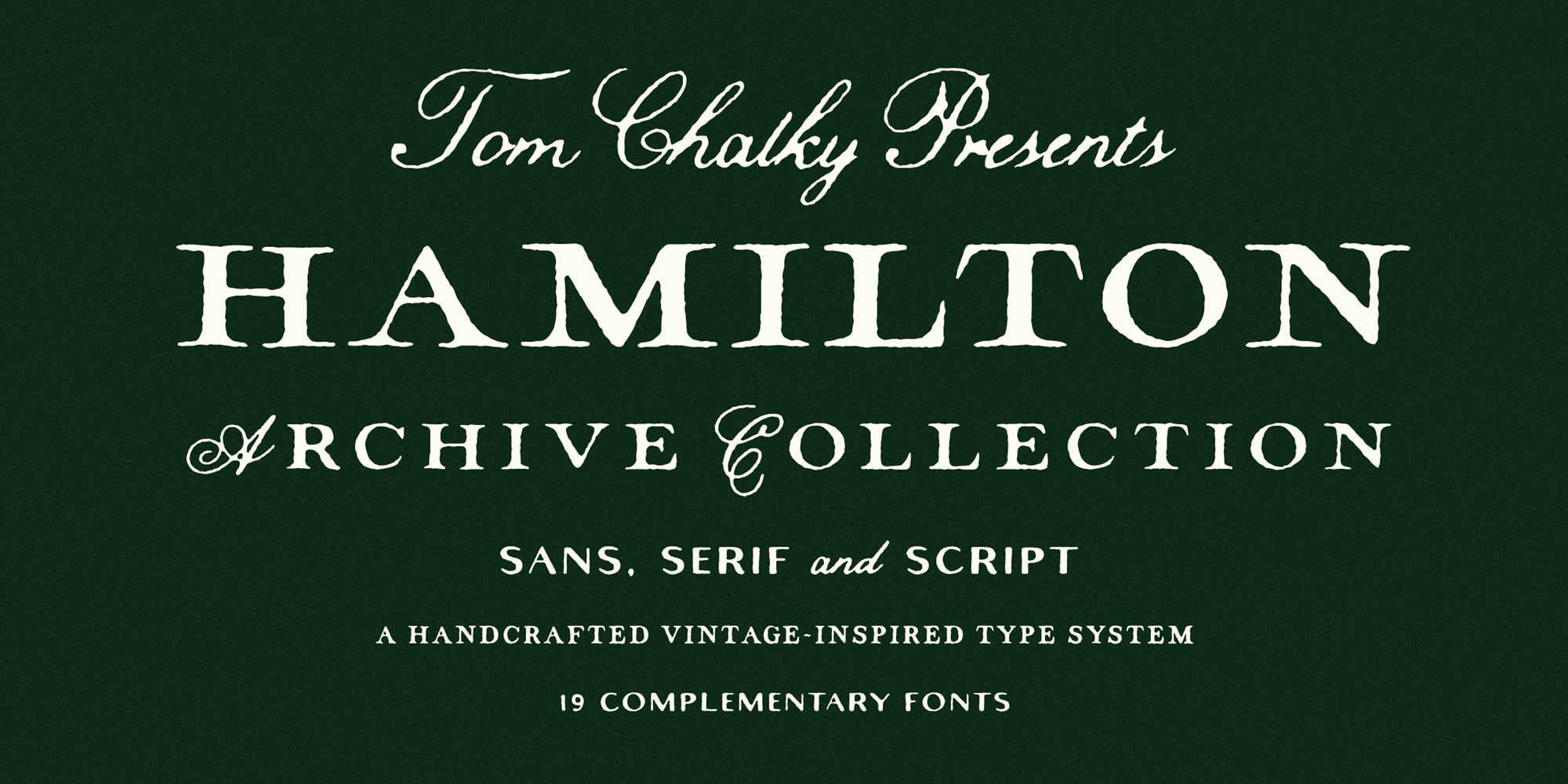
TC Hamilton Archive Font is perfect for a wide range of design applications including historical document reproductions, archival museum displays, academic publication layouts, vintage newspaper designs, governmental institution branding, library collection materials, scholarly research presentations, heritage preservation projects, classical book publishing, and distinguished editorial layouts.
What makes TC Hamilton Archive Font exciting is its scholarly elegance and archival authenticity that perfectly captures the distinguished tradition and institutional gravitas of classical American typography and academic excellence. This prestigious typeface brings a sense of intellectual authority and historical significance to any project with its meticulously crafted letterforms that showcase traditional proportions and timeless scholarly appeal. The font's refined character shapes and academic proportions create an atmosphere of institutional prestige and educational excellence that resonates with audiences seeking credibility, scholarship, and historical authenticity, making it an ideal choice for brands emphasizing academic achievement, institutional authority, and scholarly distinction.
The TC Hamilton Archive Font family includes multiple weights and styles designed to accommodate various academic and institutional design requirements. The collection typically features regular, bold, italic, and small caps variations, each maintaining the font's signature scholarly aesthetic while providing comprehensive typographic flexibility. Additional academic symbols and institutional ornaments enhance the family's creative potential for education-focused design projects.
Professional designers appreciate TC Hamilton Archive Font's exceptional scholarship and comprehensive character support. The font includes extensive punctuation marks, numerical figures, academic symbols, and international language capabilities, making it perfect for global educational institutions and international scholarly projects. Its academically optimized spacing and kerning ensure professional results in publications, presentations, and institutional branding applications.
The enduring recognition of TC Hamilton Archive Font in the academic community reflects its ability to enhance institutional credibility and create authoritative visual communications that celebrate scholarly excellence and educational tradition. Whether used for university branding, academic publications, or cultural institution materials, this font delivers outstanding results that honor the distinguished heritage of American educational typography.